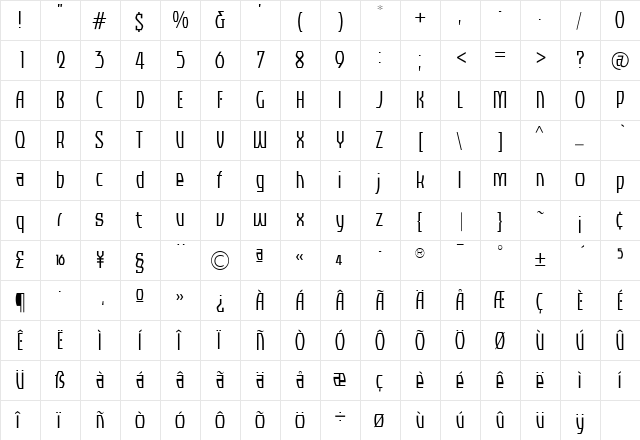
TFAkimbo Light Font Preview
TFAkimbo Light
TFAkimbo Light Font Details
| Foundry | Treacyfaces, Inc |
Design Context for TFAkimbo Typeface
TFAkimbo takes a measured approach to typography — its balanced proportions and neutral character make it a reliable workhorse for both digital and print work. Its slender proportions lend an understated elegance to any composition.